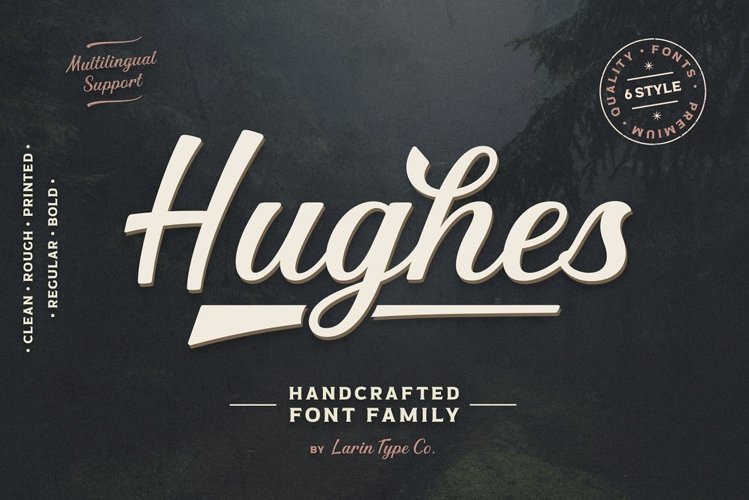
Hughes is a stylish and original multi-functional font, made in 6 styles (regular, rough, pressed, bold, bold rough, bold pressed), he fits perfectly for both modern and vintage design. With it, you can create beautiful logos, labels, templates, signs, highlight text, use it for outdoor advertising, branding, and much more. Also in this font there are stylistic alternates and swashes that will make your design even more attractive and interesting. It is easy to use and has OpenType features.
Following international symbols support: ÀÁÂÃÄÅĄÇĆÈÉÊËĘÌÍÎÏÐÑŃŁÒÓÔÕÖØÙÚÛÜŚŠŸÝŹŻŽßàáâãäåçèéêëìíîïðñòóôõöøùúûüýÿąćęłńśšźżž